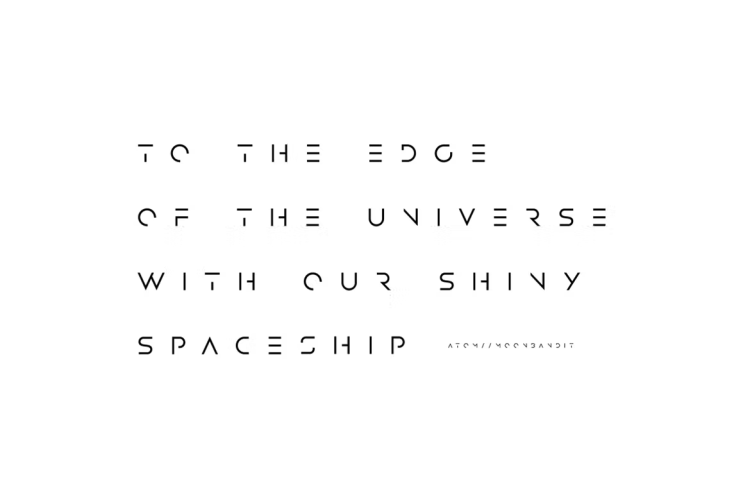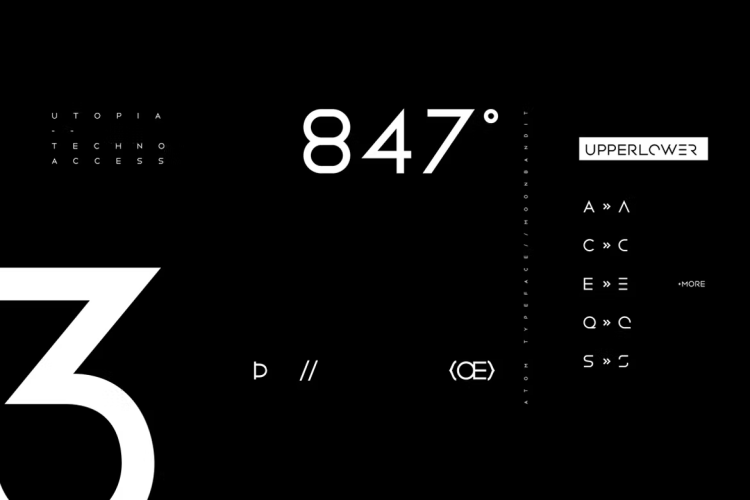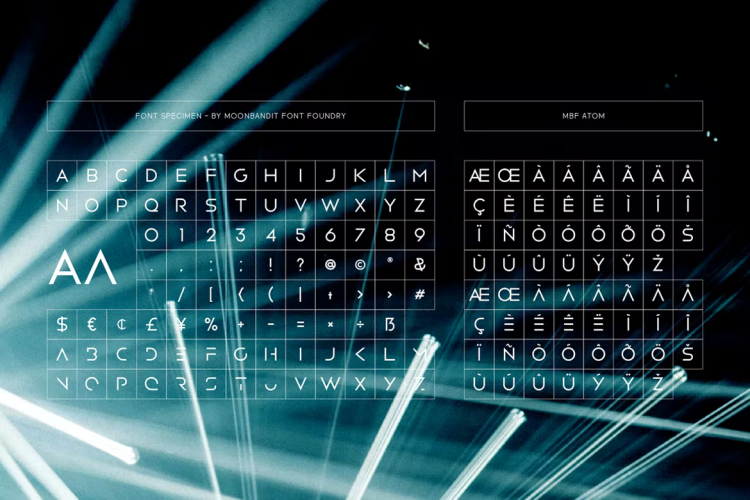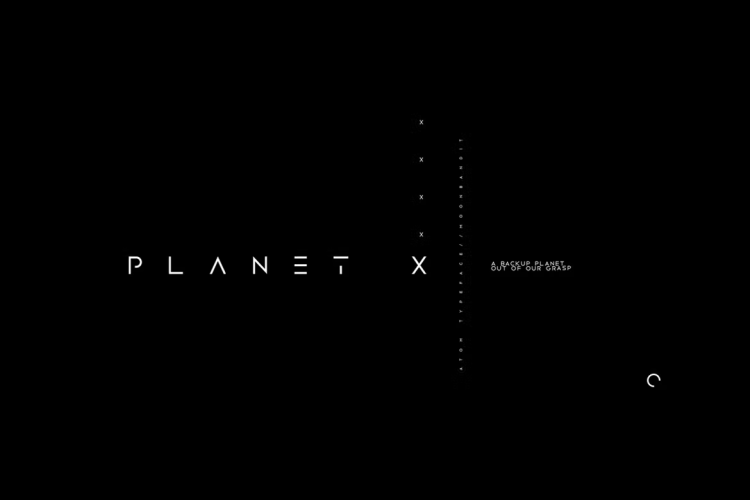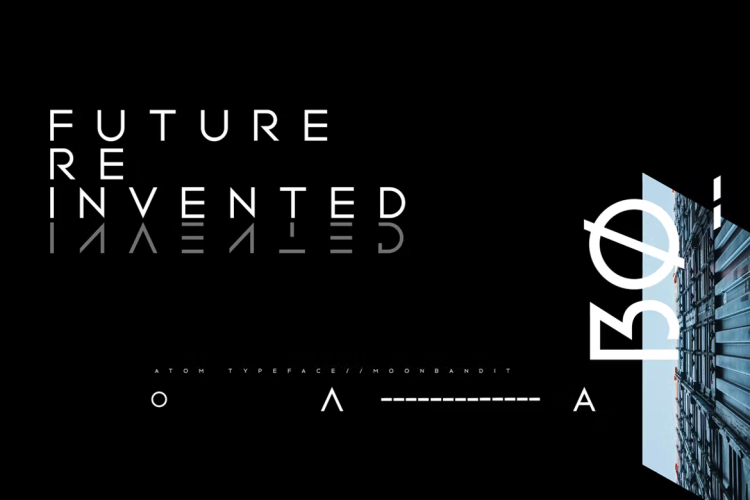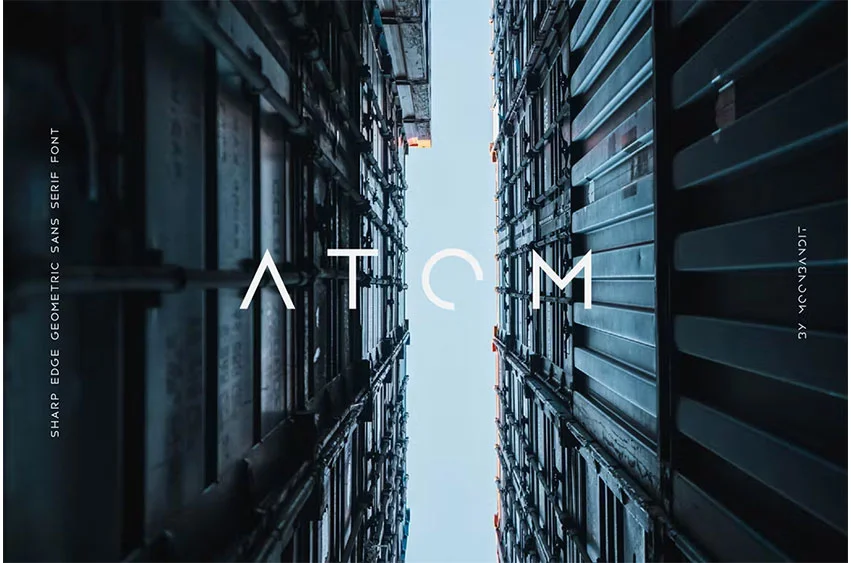
Atom Font
Atom Font is a new generation of an all caps futuristic sans serif font. Thin geometric lines with sharp edges to ensure a striking exposure. Perfect for display, logoty…
Atom Font is a new generation of an all caps futuristic sans serif font. Thin geometric lines with sharp edges to ensure a striking exposure. Perfect for display, logotype, headline, and many more. Easy to use, simply manage the lowercase to acquire the alternative glyphs.
Where Atom Font works best
Atom Font stays legible at small sizes, which makes it a strong choice for navigation, buttons and dashboards in web design and app interfaces.
Clean sans serifs like Atom Font are the default language of SaaS, fintech and product branding.
What is Atom Font good for?
Atom Font is a Sans Serif Fonts typeface tagged Display, Geometric, Sans Serif, Sans Serif Fonts. It works well for headlines, logos, posters, social media graphics and branding projects that need a distinctive sans serif fonts look.